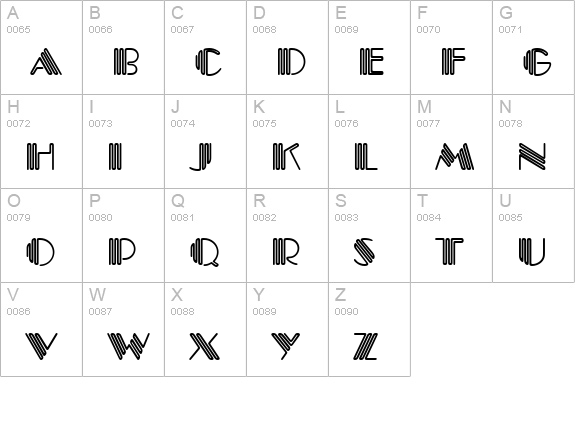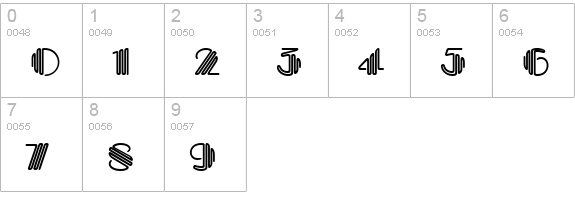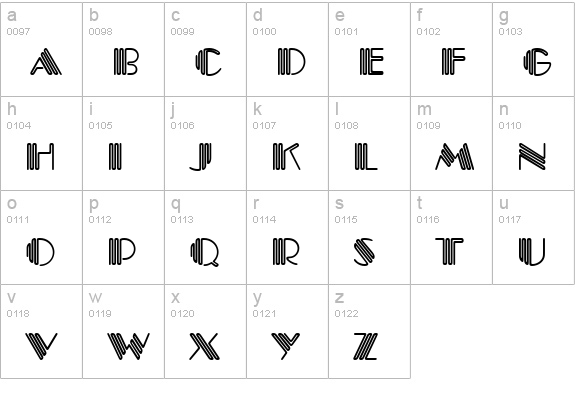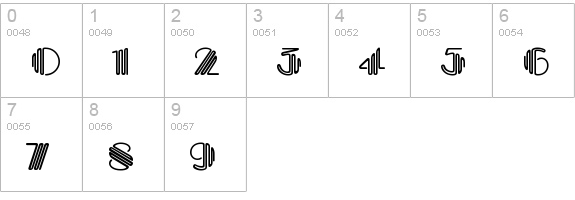
PiccadillyD Font Details
Introducing PiccadillyD, a strikingly elegant font that exudes sophistication and charm. With its delicate curves and refined strokes, this font captures the essence of classic design while adding a modern twist. Each character is meticulously crafted to perfection, ensuring a seamless flow and readability that is second to none. PiccadillyD is the perfect choice for any project that demands a touch of elegance, whether it's a wedding invitation, a luxurious branding project, or a high-end editorial layout. Its versatility allows it to effortlessly adapt to any design concept, elevating your creations to new heights of beauty and refinement. What sets PiccadillyD apart is not just its exquisite design, but also its accessibility. We are thrilled to announce that PiccadillyD is available as a free download exclusively on FontsMarket.com. Now, designers and creatives from all walks of life can easily access this remarkable font and incorporate it into their projects without any financial burden. Downloading PiccadillyD from FontsMarket.com ensures that you are not only getting a top-quality font but also supporting a platform that values the freedom of creativity. With just a few clicks, you can unlock the potential of PiccadillyD and infuse your designs with its timeless elegance. So why wait? Embrace the beauty of PiccadillyD and let your creativity soar. Download your free copy today at FontsMarket.com!